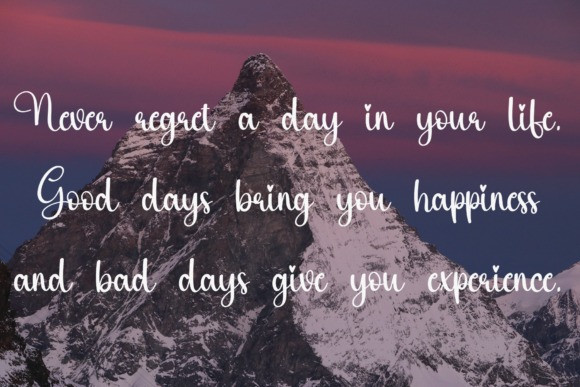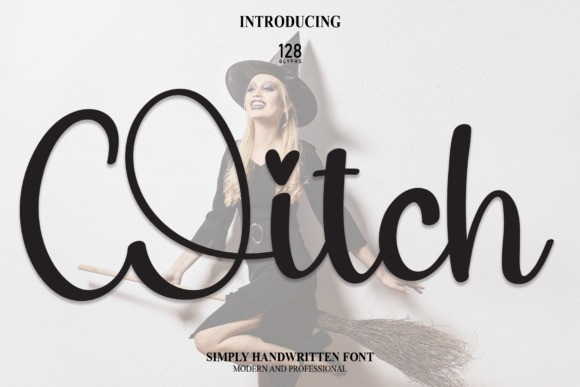
Witch Script Font
Witch Script Font is a fun and friendly handwritten font. Use it to turn any design idea into a true standout. Get inspired by its unique charm and create lovely designs.